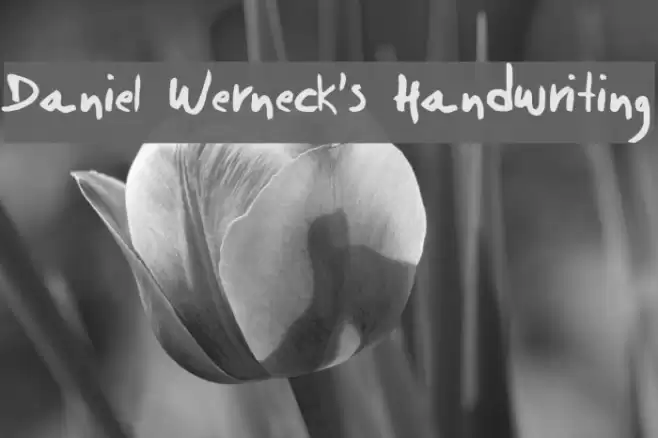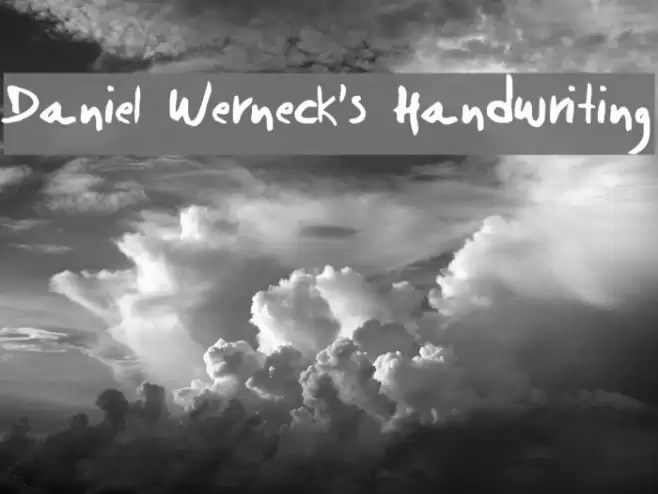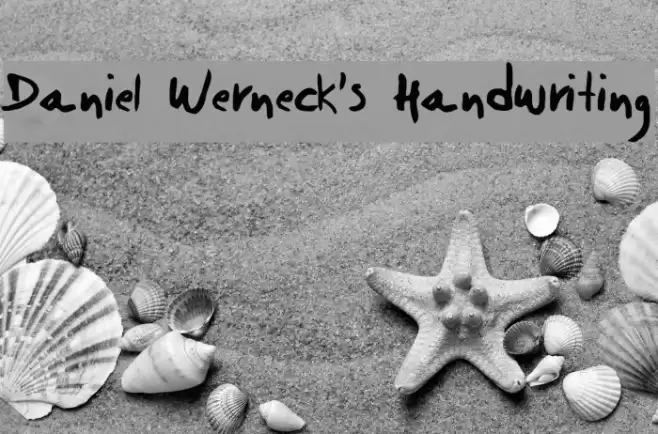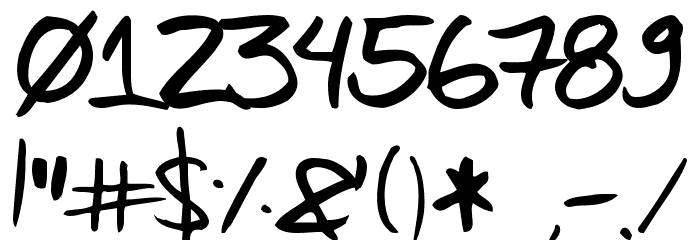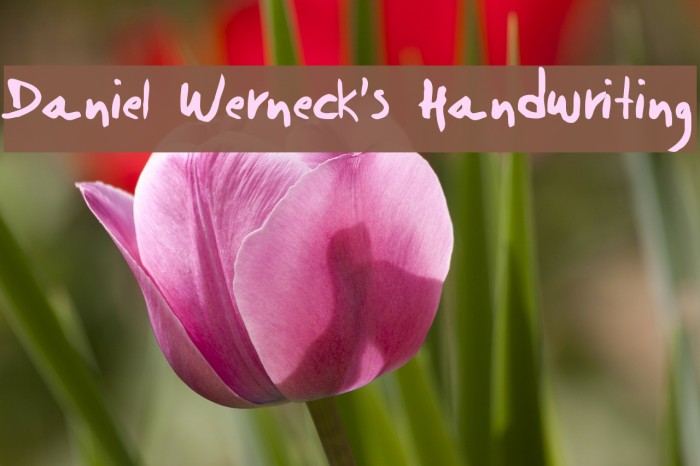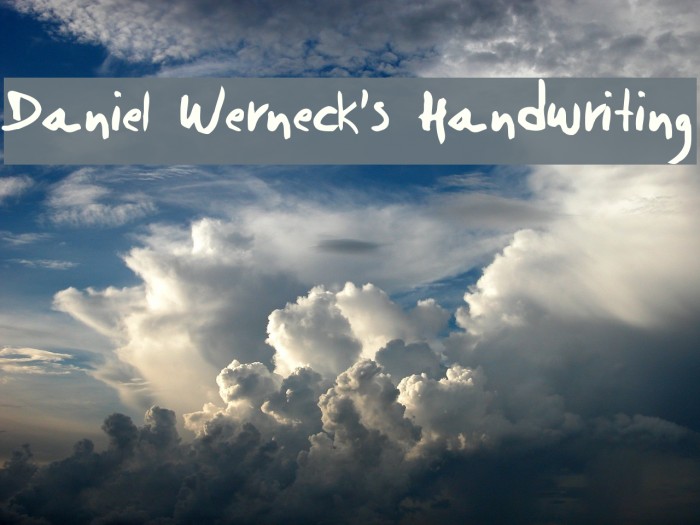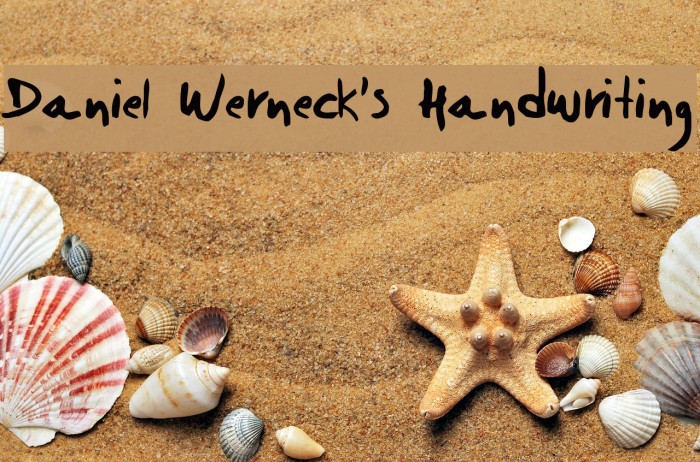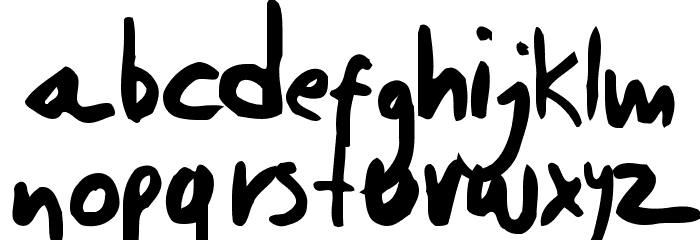
Daniel Werneck's Handwriting Font
Daniel Werneck's Handwriting Description
This font exudes a casual and personal touch, reminiscent of authentic handwriting. The strokes are bold and expressive, with a slightly uneven baseline that adds to its charm. Each character is distinct, with a playful yet legible style that captures the essence of handwritten notes. The uppercase letters are robust and slightly larger than the lowercase, which are more fluid and connected. Numbers and special characters maintain the same handwritten feel, making this font versatile for various uses. Its organic flow and informal appearance make it ideal for projects that require a personal or creative touch.
A bold, expressive handwritten font with a casual, personal style from Handwritten fonts.
- Proposed Projects: Ideal for greeting cards, personal branding, creative projects, and informal invitations.
- Overall Style: Casual, Personal
- Use Case: Logos, Headlines, Creative projects